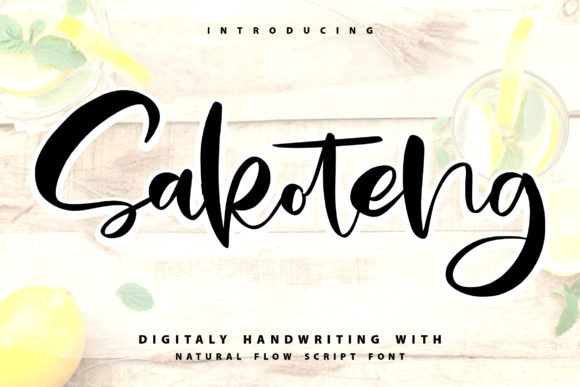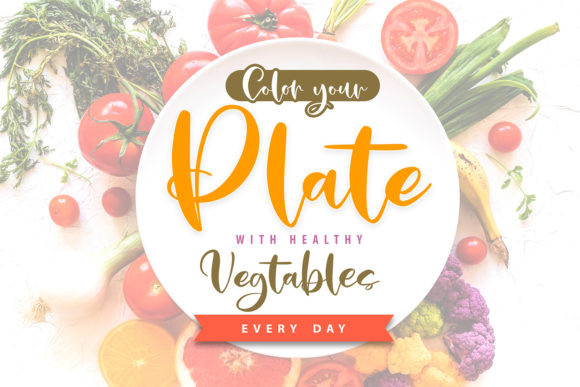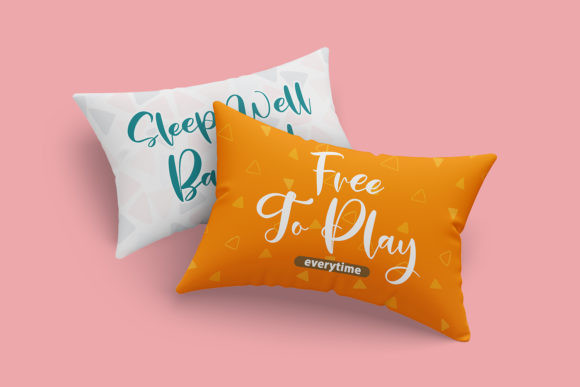
Sakoteng Font
Sakoteng is a lovely paint brushed handwritten font. Thick lettered yet cursive, this font will make each of your designs stand out. This font is PUA encoded which means you can access all of the glyphs and swashes with ease!